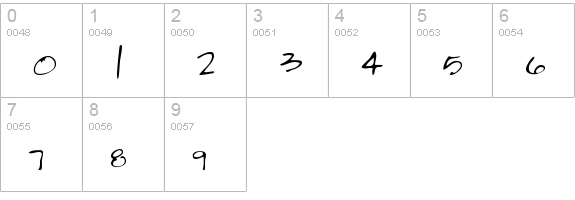
LeroysHand Regular Font Details
LeroysHand Regular is the standard, neutral variant in the LeroysHand typeface family \xE2\x80\x94 well suited to general body text, paragraphs, and standard typographic work.
LeroysHand Regular font is a beautifully crafted typeface that effortlessly captures the essence of hand-drawn lettering. With its whimsical and playful style, this font is perfect for adding a touch of creativity to any design project. The strokes of LeroysHand Regular are carefully hand-drawn, giving it an authentic and organic feel. Each character is lovingly crafted with attention to detail, resulting in a font that is both visually pleasing and highly legible. Whether you're designing a logo, creating a poster, or crafting a unique invitation, LeroysHand Regular will surely make your project stand out. Its unique personality and charm add a delightful touch, infusing your designs with character and warmth. And the best part? LeroysHand Regular is free! That's right, you can freely download this incredible font at FontsMarket.com. With just a few clicks, you can enhance your designs with a font that is both eye-catching and accessible. So why wait? Download LeroysHand Regular today and let your creativity soar. Whether you're a professional designer or just starting out, this font is a must-have in your typographic arsenal. Don't miss out on this amazing opportunity to add a touch of hand-drawn magic to your designs. Get LeroysHand Regular now, exclusively at FontsMarket.com.